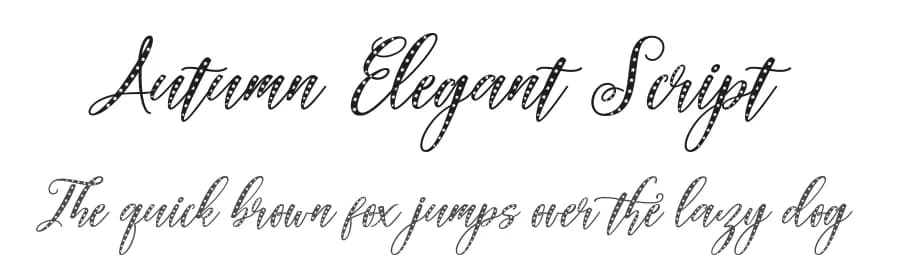
About Autumn Elegant Script Font
Autumn Script Elegant is a stylish calligraphy font that features a varying baseline, smooth line, classic and interesting touch. Can be used for various purposes. such as headings, signature, logos, posters, t-shirt, signage, lable, wedding invitation, badges etc.
Autumn Elegant Script Font is a script font that shines as a display or heading face. Pair it with a clean sans-serif or serif font for body text β the contrast creates a clear hierarchy while the two styles stay balanced and easy to read.
Autumn Elegant Script Font